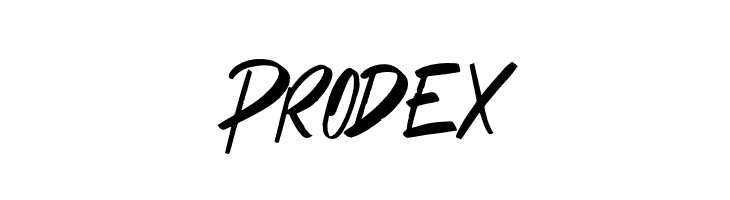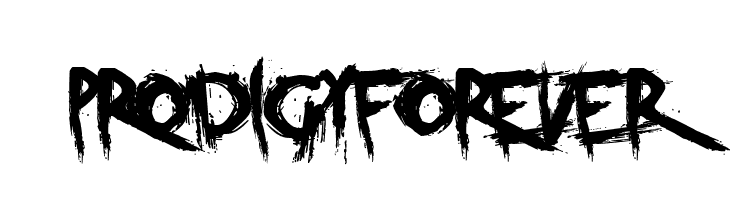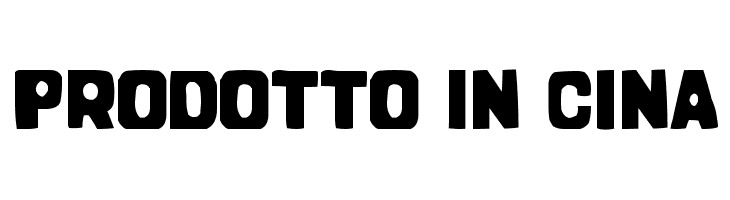
A bold, decorative blackletter-inspired font with a three-dimensional ribbon effect.
A fluid and elegant script font with a handwritten style.
A modern, condensed font with tall, narrow characters and a sleek design.
A dynamic, hand-drawn font with sketch-like strokes and playful energy.
A bold, brush-style font with dynamic and energetic strokes.
A bold, edgy font with jagged, brush-like strokes and a rebellious style.
A bold, playful font with irregular, hand-crafted edges.